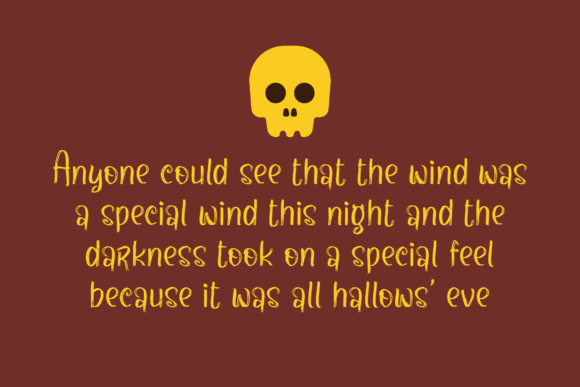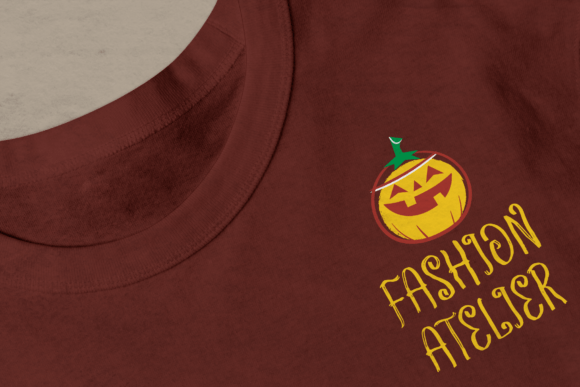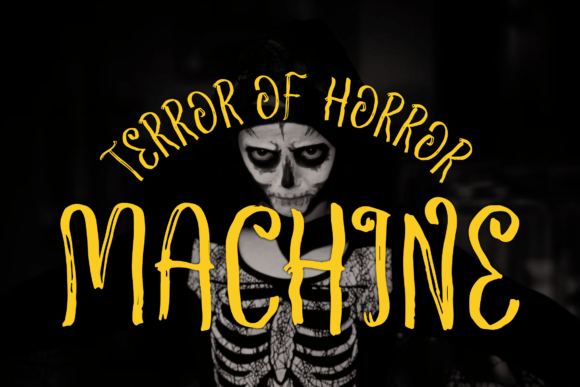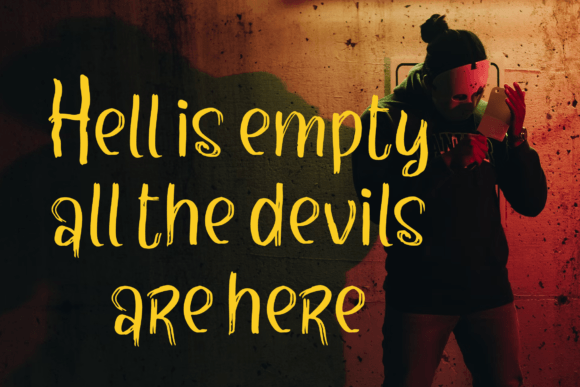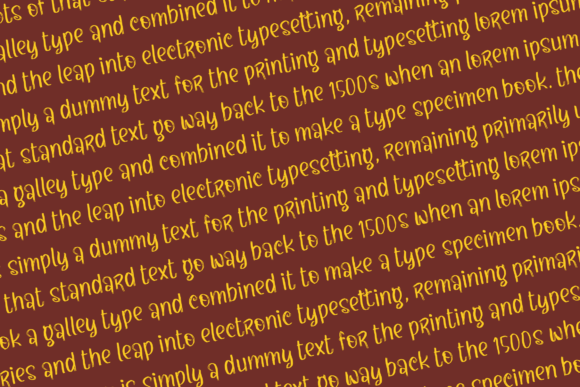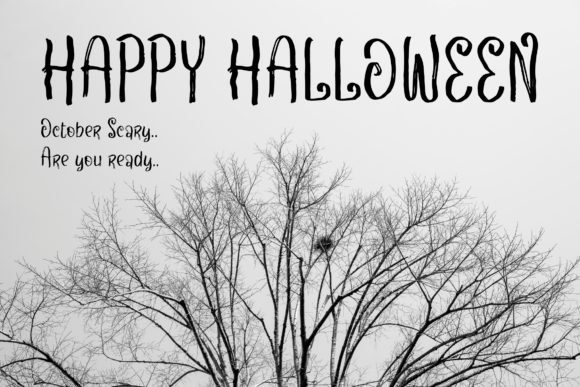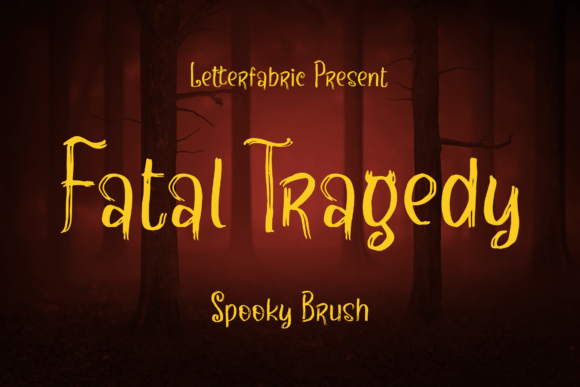
Introducing Fatal Tragedy Font: The Spooky Brush Font for Your Creepy Projects
Are you a designer or crafter looking for a font that can add a touch of spookiness to your projects? Look no further than the Fatal Tragedy font, a spooky brush font that is perfect for creating eerie and captivating designs. In this article, we’ll explore the features and benefits of the Fatal Tragedy font, and show you can use it to take your projects to the next level.
What is Fatal Tragedy Font?
Fatal Tragedy is a unique and eye-catching brush font that is designed to add a touch of spookiness to your projects. With its bold and expressive brush strokes, this font is perfect for creating designs that require a creepy and eerie feel. Whether you’re working on a logo, branding project, or product packaging, the Fatal Tragedy font is sure to make your designs stand out.
Features of Fatal Tragedy Font
The Fatal Tragedy font comes with a range of features that make it perfect for designers and crafters. Some of its key features include:
• Spooky and eerie feel: The Fatal Tragedy font has a unique and captivating design that is sure to add a touch of spookiness to your projects.
• Bold and expressive brush strokes: The font features bold and expressive brush strokes that give it a dynamic and eye-catching look.
• Versatile and flexible: The Fatal Tragedy font is suitable for a wide range of projects, from logos and branding to product packaging and more.
Uses of Fatal Tragedy Font
The Fatal Tragedy font is suitable for a wide range of projects, including:
• Logos and branding projects: The font’s bold and expressive design makes it perfect for creating eye-catching logos and branding materials.
• Product packaging: The Fatal Tragedy font is ideal for creating product packaging that stands out on store shelves.
• Mugs and quotes: The font’s spooky and eerie feel makes it perfect for creating creepy and captivating designs for mugs and quotes.
• Posters and shopping bags: The Fatal Tragedy font is suitable for creating eye-catching posters and shopping bags that are sure to grab attention.
• T-shirts and book covers: The font’s bold and expressive design makes it perfect for creating eye-catching designs for t-shirts and book covers.
• Name cards and invitation cards: The Fatal Tragedy font is ideal for creating elegant and sophisticated name cards and invitation cards.
• Greeting cards and labels: The font’s spooky and eerie feel makes it perfect for creating creepy and captivating designs for greeting cards and labels.
• Photography and watermark: The Fatal Tragedy font is suitable for creating eye-catching watermarks and overlays for your photographs.
Benefits of Using Fatal Tragedy Font
The Fatal Tragedy font offers a range of benefits for designers and crafters, including:
• Unique and eye-catching designs: The font’s bold and expressive design makes it perfect for creating eye-catching and captivating designs.
• Versatility: The font is suitable for a wide range of projects, making it a great addition to any designer’s or crafter’s toolkit.
The Fatal Tragedy font is a unique and eye-catching spooky brush font that is perfect for designers and crafters looking to add a touch of eeriness to their projects. With its bold and expressive brush strokes, versatile design, and ease of use, this font is sure to become a staple in any designer’s or crafter’s toolkit. So why wait? Download the Fatal Tragedy font today and start creating spooky and captivating designs that are sure to leave a lasting impression.